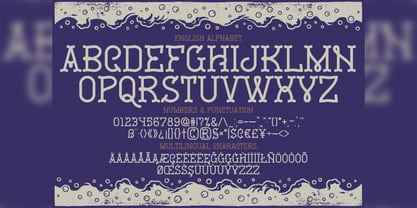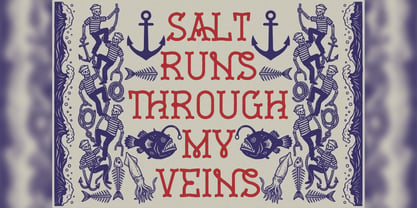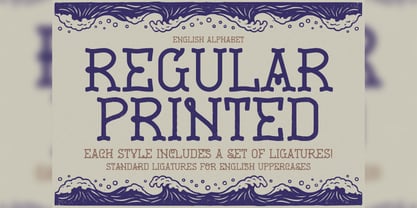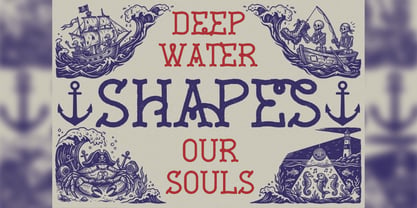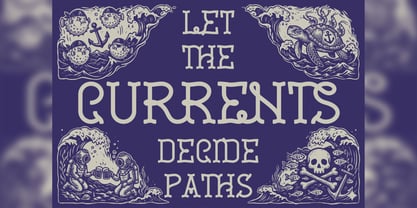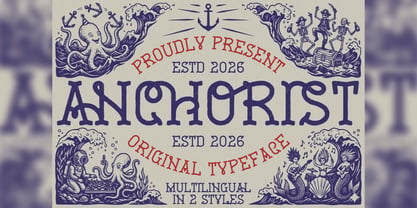
Anchorist
by Vozzy
The Anchorist Font Family was designed by Oleg Voznyy and published by Vozzy. Anchorist contains 2 styles and family package options. More about this family
Introducing "Anchorist," a distinctive font designed specifically for headlines, accent inscriptions, and capturing attention. This versatile typeface features a wide array of additional characters, punctuation marks, and multilingual options, making it ideal for diverse design projects. With a generous selection of standard ligatures, ensure your software supports this OpenType feature to fully utilize its capabilities. "Anchorist" will enhance your beautiful designs, adding a touch of elegance and uniqueness that stands out in branding, web design, and editorial layouts.